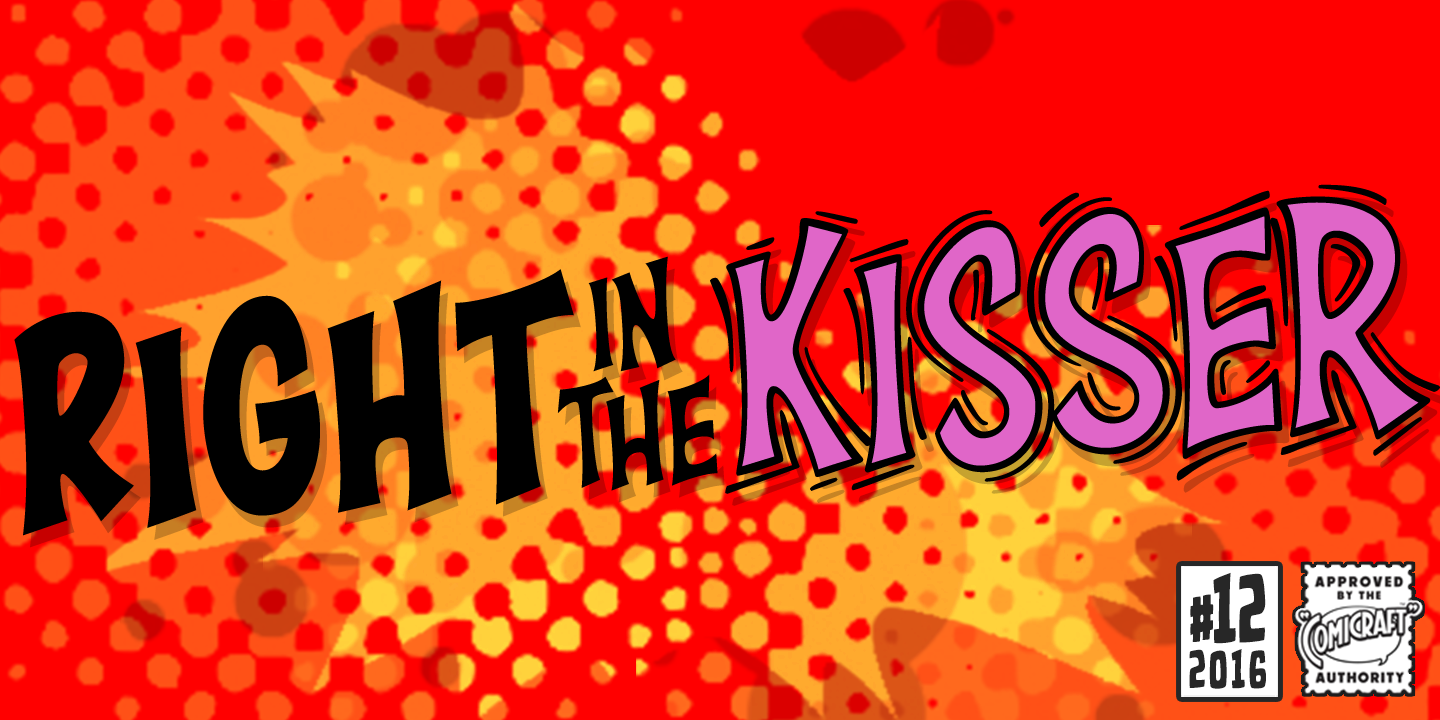
Right In The Kisser Font is perfect for boxing gym branding, action movie titles, competitive sports graphics, knockout tournament promotions, fighting game interfaces, martial arts academy signage, powerful advertising campaigns, high-impact poster designs, dynamic entertainment venues, and aggressive marketing materials. This commanding typeface excels in applications where explosive impact and direct force need to be communicated with uncompromising power and in-your-face attitude that delivers maximum visual punch and unforgettable presence.
What makes Right In The Kisser Font exciting is its remarkable ability to deliver knockout visual impact through its bold, hard-hitting letterforms that seem to pack the force of a championship punch with every character. The font embodies the spirit of direct confrontation and uncompromising power with its aggressive construction and forceful proportions that suggest the decisive moment of contact in competitive combat. Its carefully engineered character details and hard-hitting personality create an atmosphere of intense confrontation that resonates with fighters, competitors, and audiences who appreciate raw power and direct action without hesitation or compromise.
The Right In The Kisser Font family typically includes Regular, Bold, and Black weights, each maintaining the signature aggressive characteristics and knockout impact. Some versions offer condensed variants for space-efficient applications, extended styles that amplify the forceful presence, and distressed treatments that simulate battle-worn appearance. The family may also include outline effects, shadow styles, and special impact treatments that enhance the fighting aesthetic for maximum visual dominance in competitive applications.
Whether you're creating combat sports brands, high-impact entertainment materials, or aggressive advertising campaigns, Right In The Kisser Font Free Download delivers the knockout power your hard-hitting projects demand. Its fighting character and aggressive styling make it an essential tool for gyms, entertainment venues, and marketers working in combat sports, action entertainment, and competitive industries where authentic aggression and decisive impact are fundamental to establishing dominance and commanding respect in highly competitive environments.